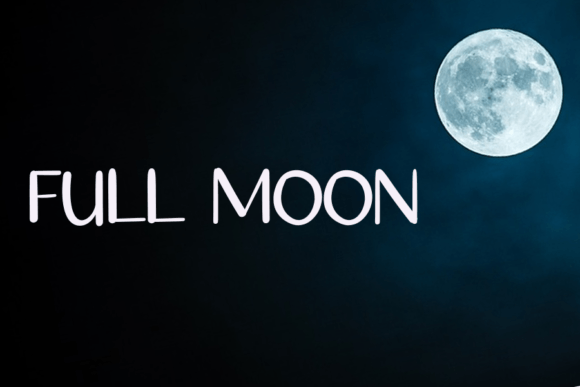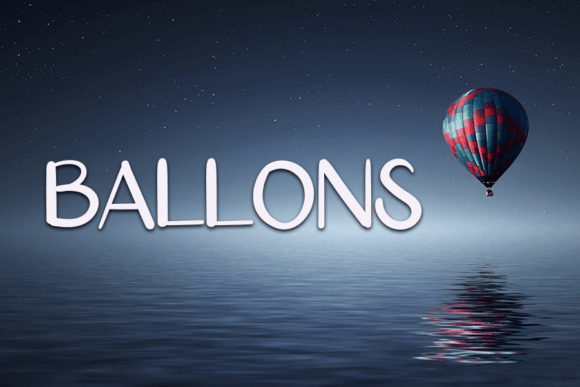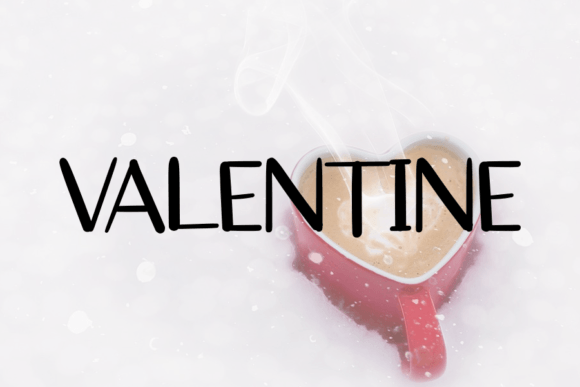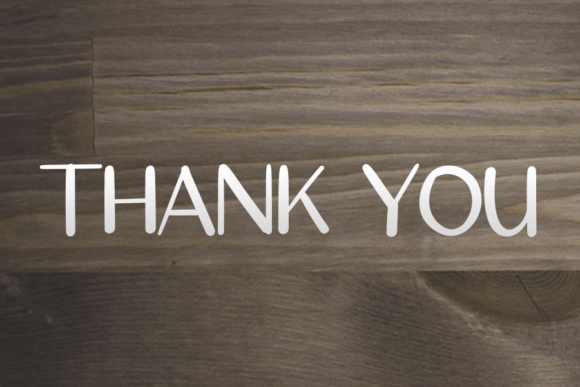
Introducing Cloud Story Font: The Ultimate Handwritten Companion for Designers and Crafters
Are you on the hunt for a font that can add a touch of personality and whimsy to your designs? Look no further than Cloud Story Font! This delightful handwritten font is perfect for a wide range of projects, from crafting and digital design to presentations and greeting cards. With its fun and friendly vibe, Cloud Story Font is sure to become your go-to choice for any occasion.
The Characteristics of Cloud Story Font
Cloud Story Font boasts a unique, hand-crafted feel that’s both approachable and charming. Its carefully designed lettering has a distinctly personal touch, making it perfect for projects where you want to convey a sense of warmth and friendliness. Whether you’re creating something for a client or a personal project, this font is sure to make your work stand out.
What Makes Cloud Story Font So Versatile?
One of the best things about Cloud Story Font is its incredible versatility. This font can be used in a wide range of contexts, from:
- Crafts: Add a personal touch to your handmade crafts, such as scrapbooking, card making, and DIY projects.
- Digital Design: Use Cloud Story Font in your digital designs, including social media graphics, blog posts, and website headers.
- Presentations: Make your presentations more engaging and fun with this eye-catching font.
- Greeting Cards: Create beautiful, one-of-a-kind greeting cards for any occasion.
Why Choose Cloud Story Font?
So, what sets Cloud Story Font apart from other fonts? Here are just a few reasons why designers and crafters love this font:
- Easy to Read: Cloud Story Font is clear and easy to read, making it perfect for both digital and print projects.
- Highly Legible: The font’s carefully designed lettering ensures that it’s highly legible, even at smaller sizes.
- Flexible: Use Cloud Story Font in a variety of contexts, from formal to informal projects.
- Unique: This font has a distinctive, hand-crafted feel that’s sure to make your work stand out.
Tips for Using Cloud Story Font
To get the most out of Cloud Story Font, here are a few tips to keep in mind:
- Experiment with Sizes: Cloud Story Font looks great at a range of sizes, from large headings to smaller body text.
- Pair with Other Fonts: Try pairing Cloud Story Font with other fonts to create a unique and eye-catching combination.
- Use in Combination with Images: Cloud Story Font looks great when used in combination with images, illustrations, and graphics.
- Handwritten font with a unique, hand-crafted feel
- Perfect for crafts, digital design, presentations, and greeting cards
- Easy to read and highly legible
- Flexible and versatile
- Distinctive and eye-catching